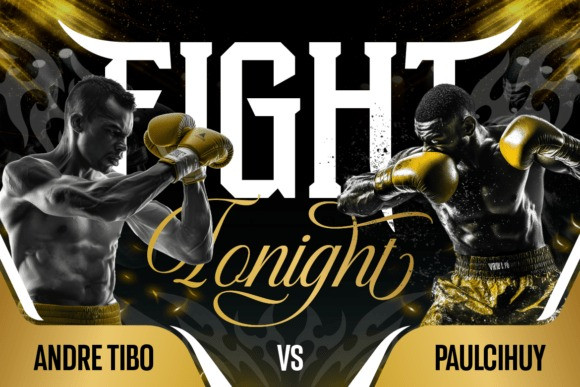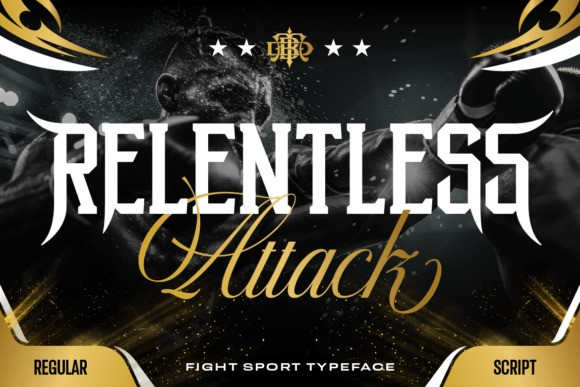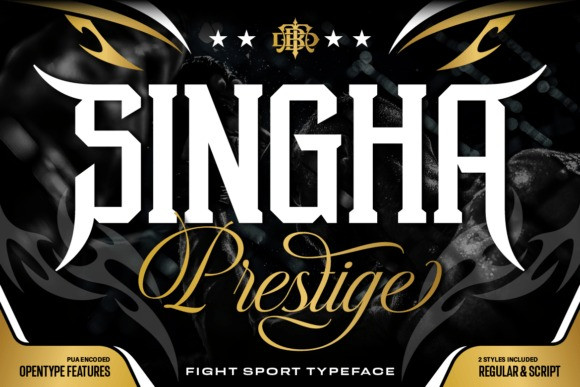
Singha Prestige Font
Singha Prestige Font is a striking combination of strength and sophistication. It comes with two styles: a bold display serif that delivers impact, and a smooth script style that adds a touch of prestige and elegance. This contrast makes it perfect for designs that need both power and refinement in one visual identity.
Designed with sharp edges, athletic proportions, and dynamic character forms, this font captures the essence of fight sports like boxing, MMA, wrestling, and more. Whether you’re creating posters, branding, or merchandise, Singha Prestige will make your design stand out like a champion.